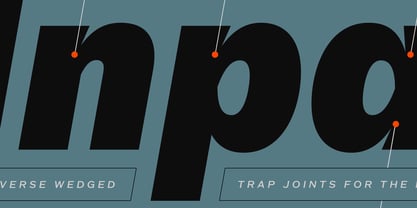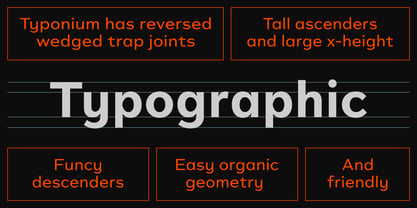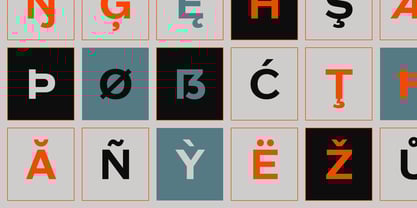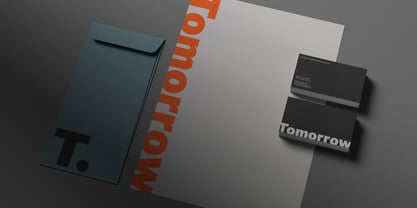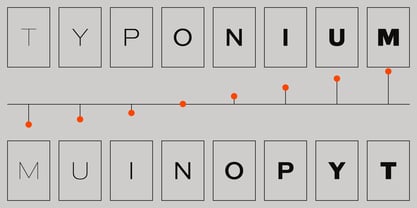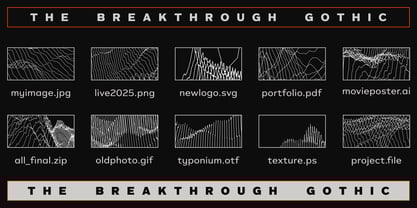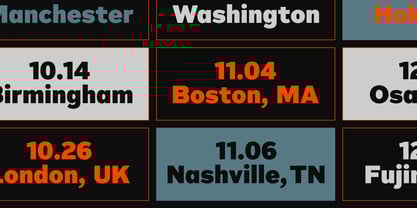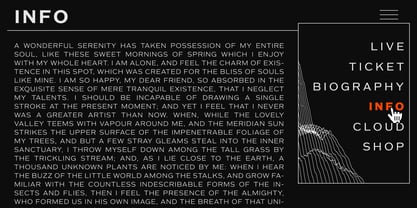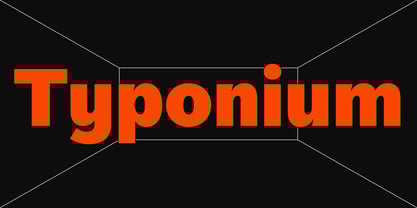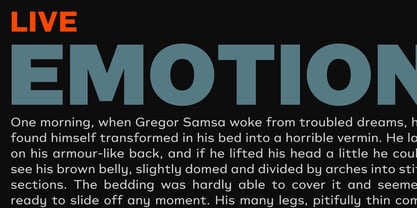
Typonium
by Dharma Type
The Typonium Font Family was designed by Ryoichi Tsunekawa and published by Dharma Type. Typonium contains 16 styles and family package options.
This typeface is fundamentally designed based on simple geometric forms.
Its foundation lies in the aesthetics of modernist movements such as Bauhaus and universal design—shapes that are minimalist, highly legible, and characterized by softly rounded bowls.
Ascenders, like those in f, and descenders, as seen in y and g, also carry a gentle roundness, creating an overall impression that feels warm and endearing.
Yet, the most distinctive feature of this typeface lies at the junctions where stems and bowls meet. Unlike conventional typefaces, these points are treated with reverse ink-traps. This unique approach lends the entire typeface a sharp, defined presence, full of visual tension and clarity.
Soft and sweet, yet strong and striking—
This typeface exists in a curious balance between opposing impressions.
It’s almost as if, like in quantum mechanics, two different states overlap and exist simultaneously.
A quiet contradiction, held beautifully in tension.
The type family consists of eight weights, each with a corresponding italic, and supports a wide range of Latin-based languages.